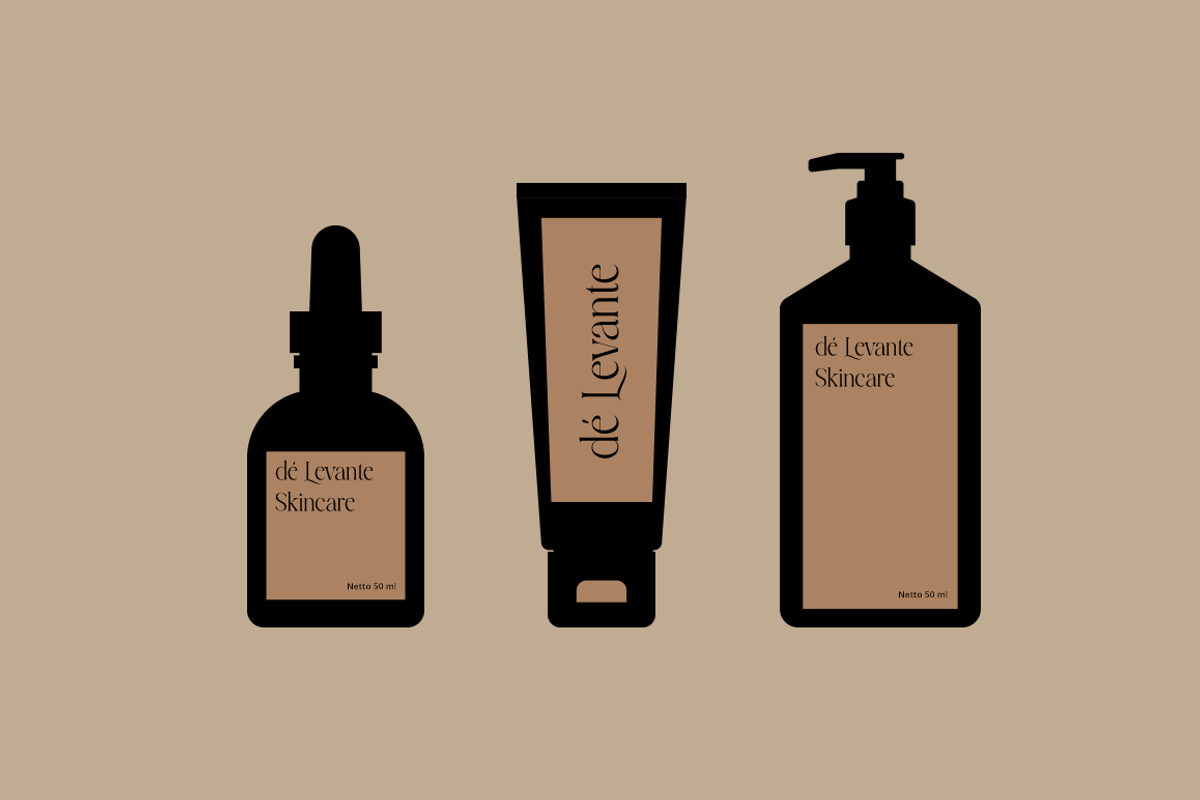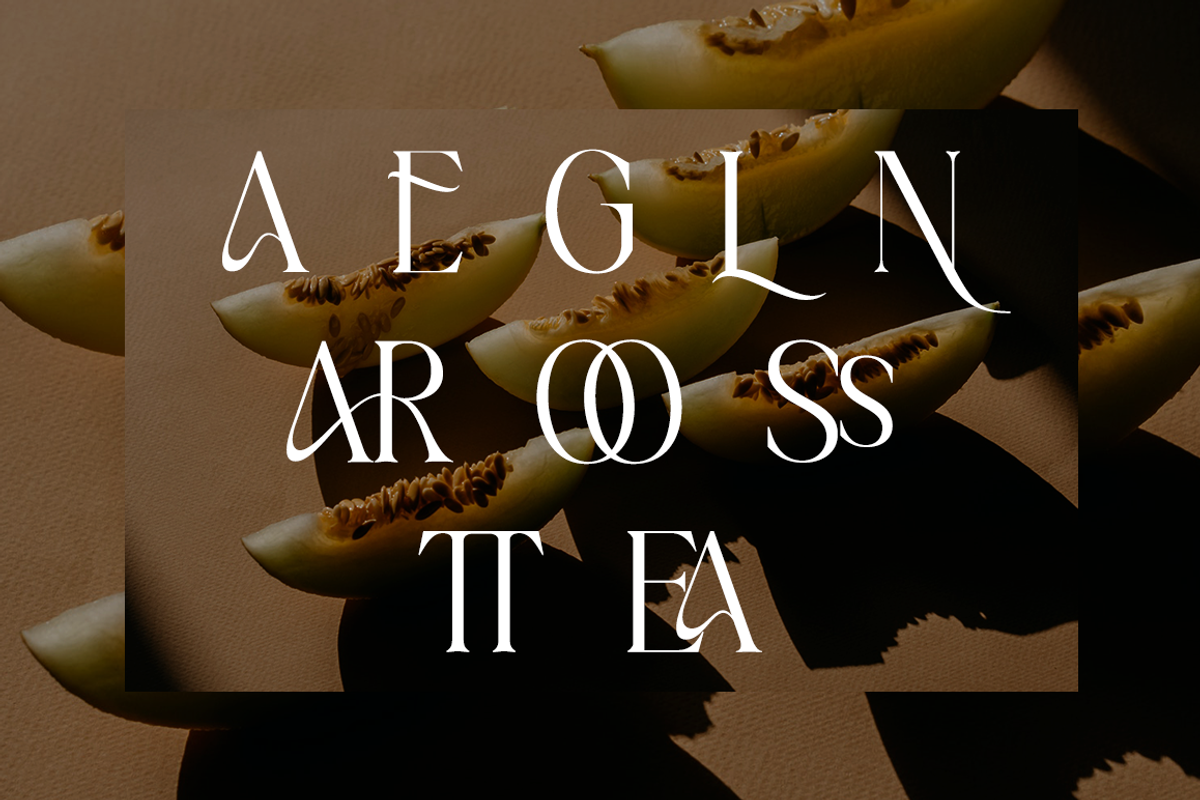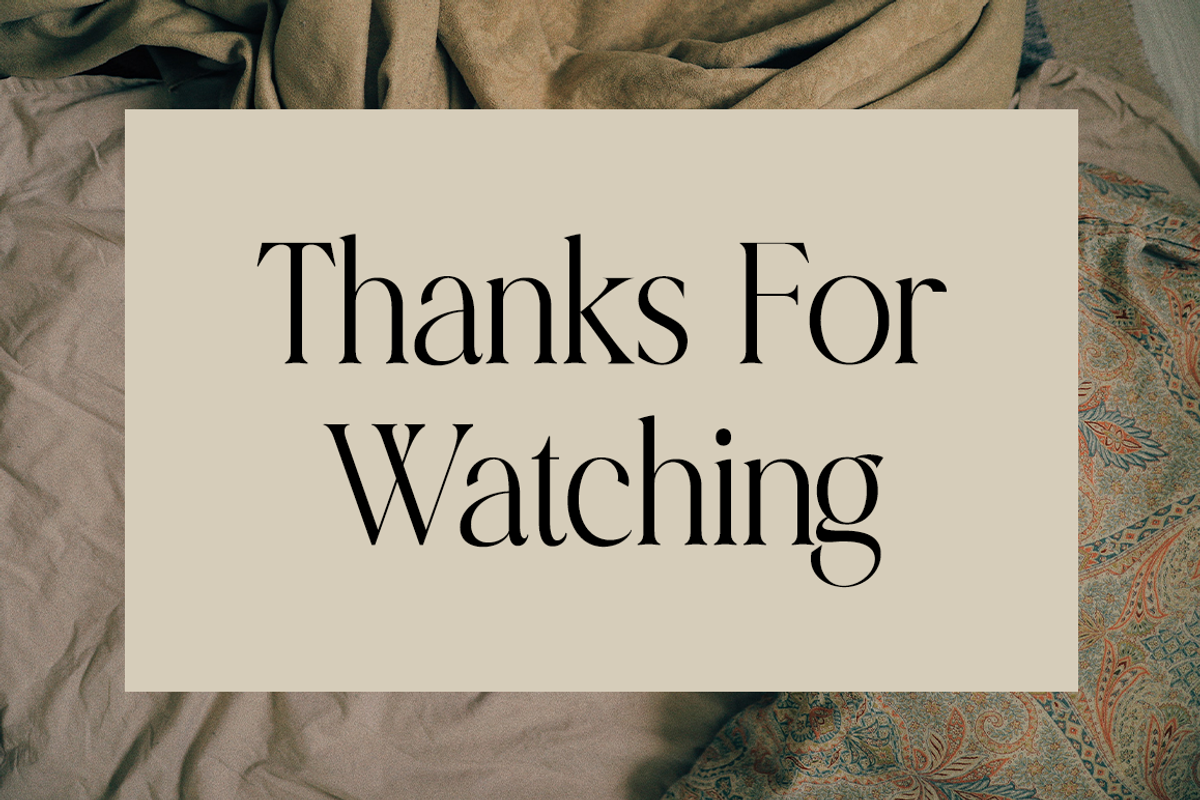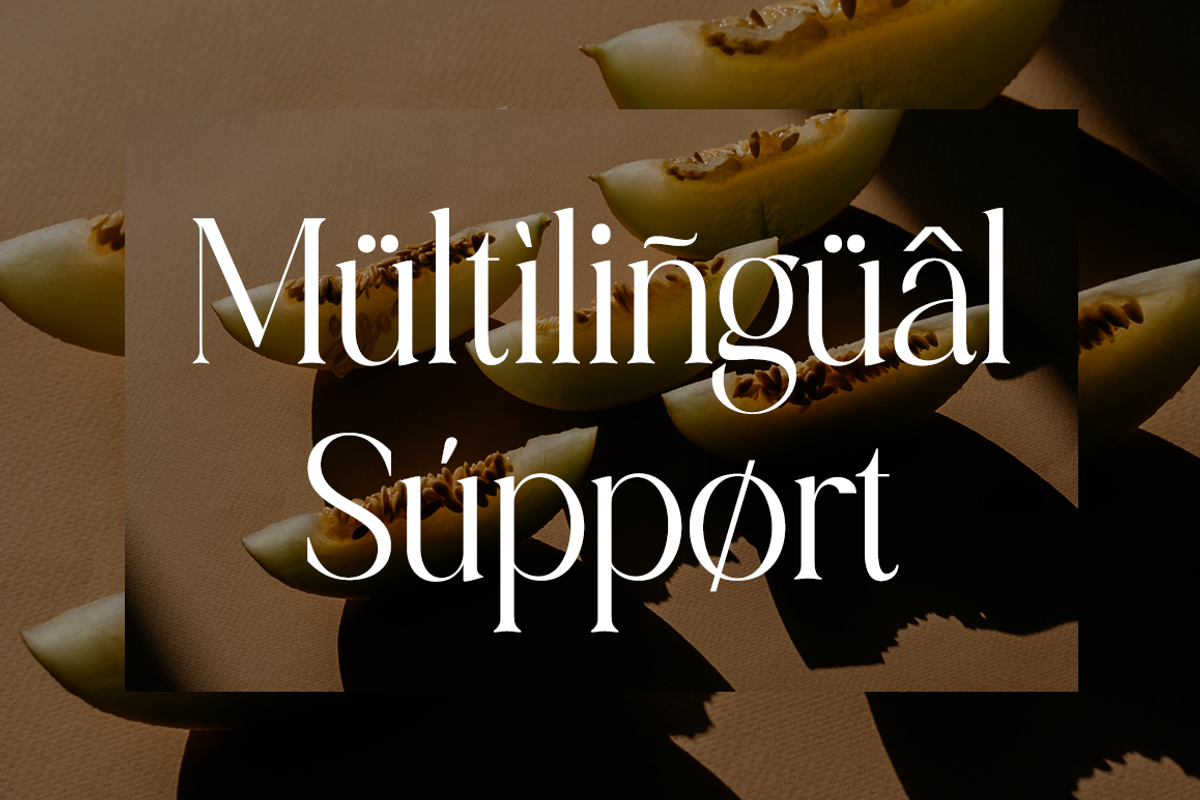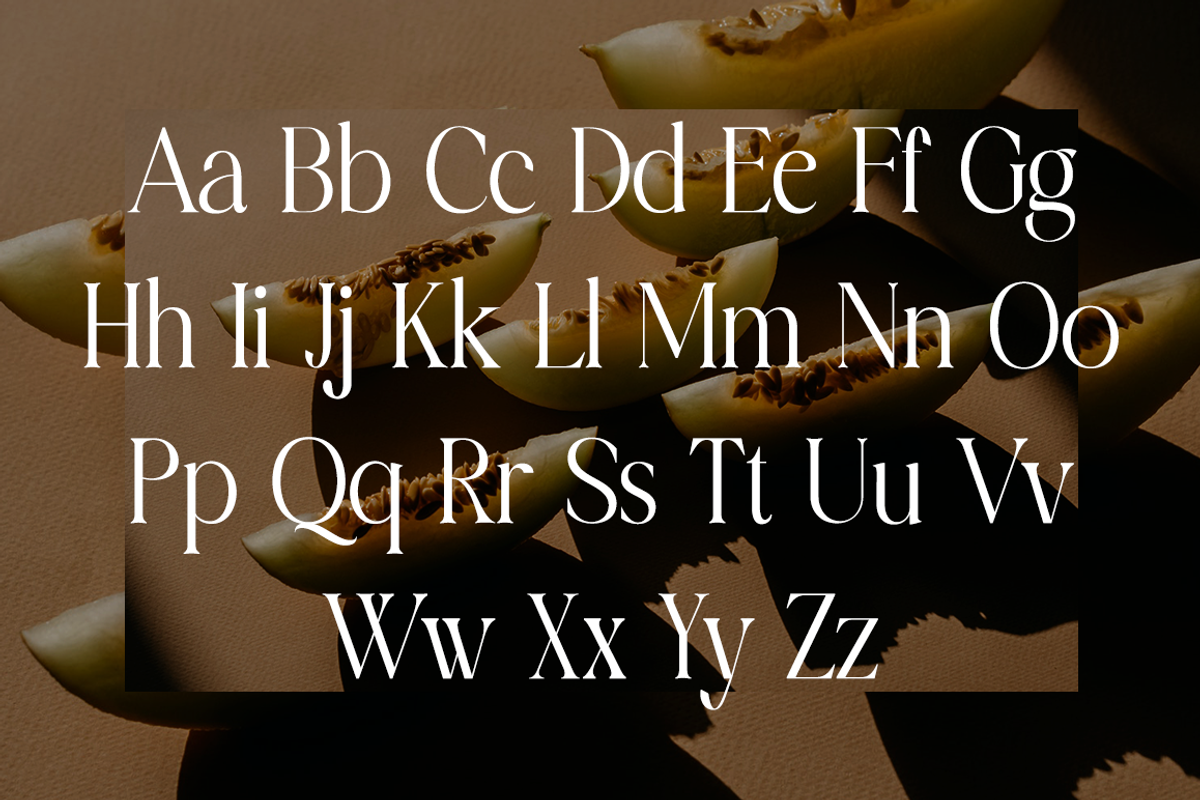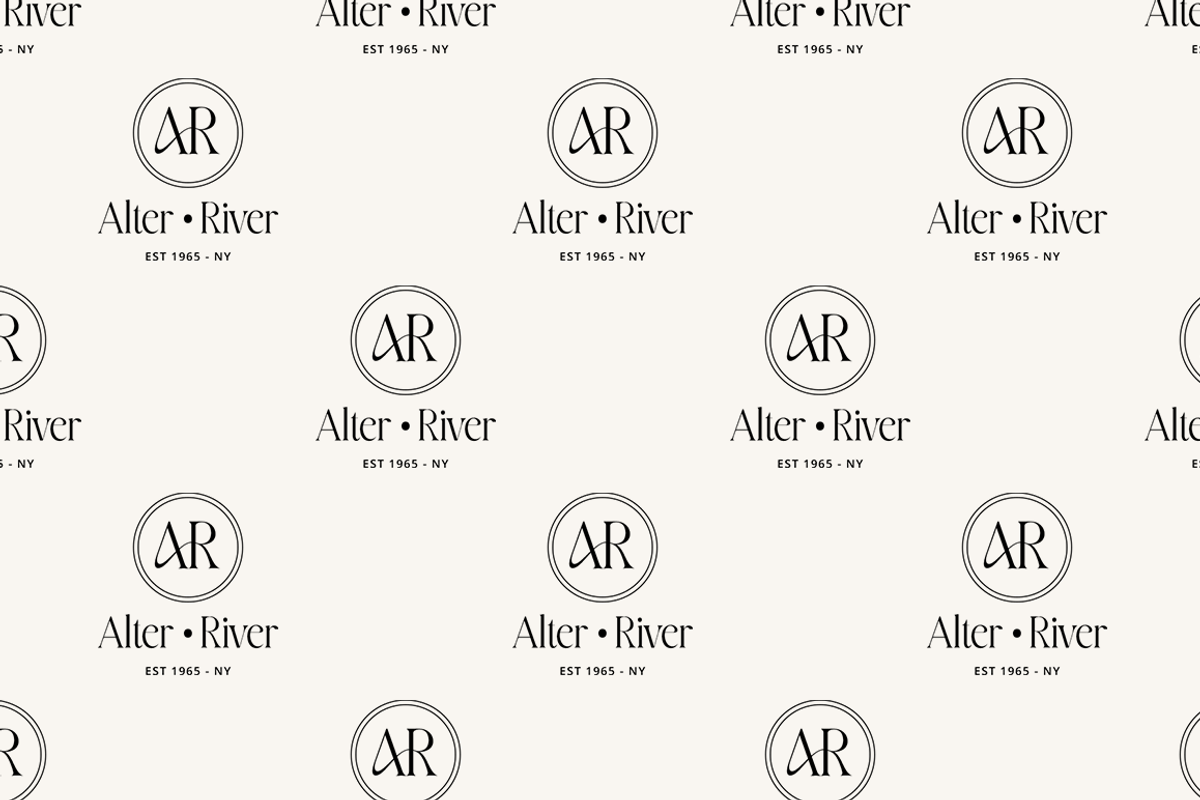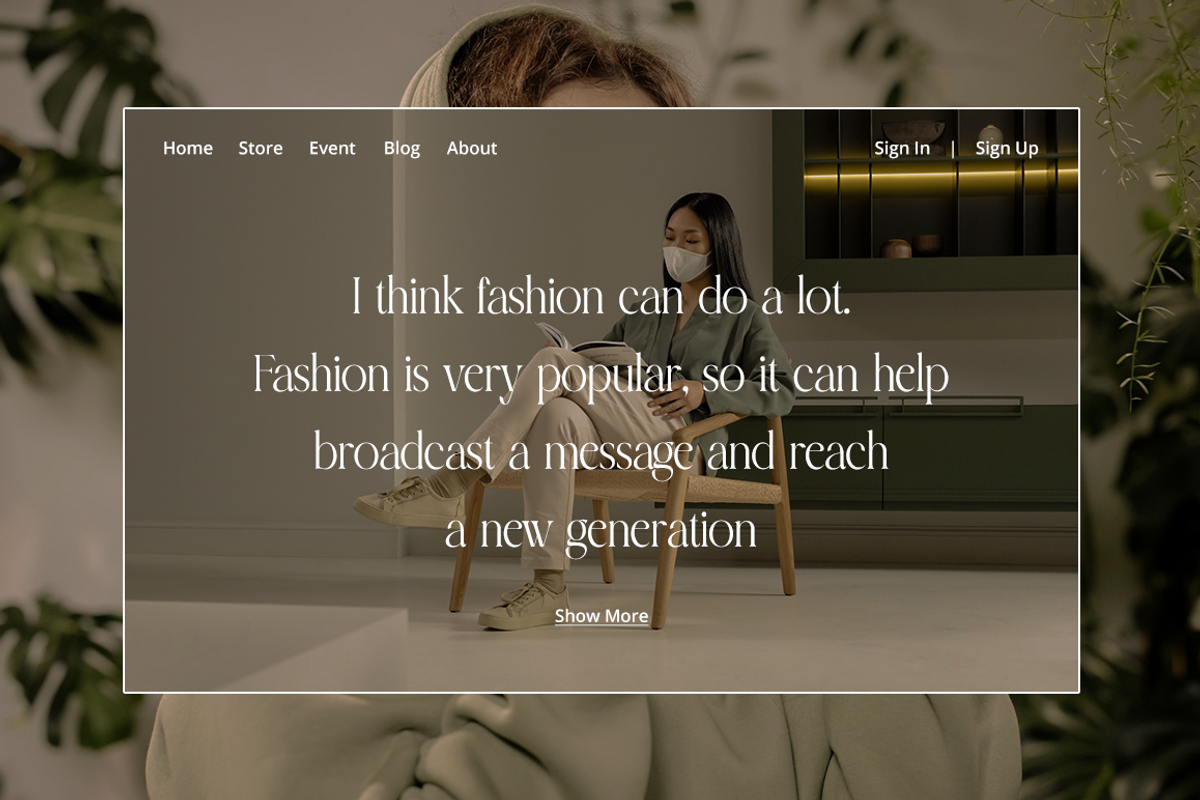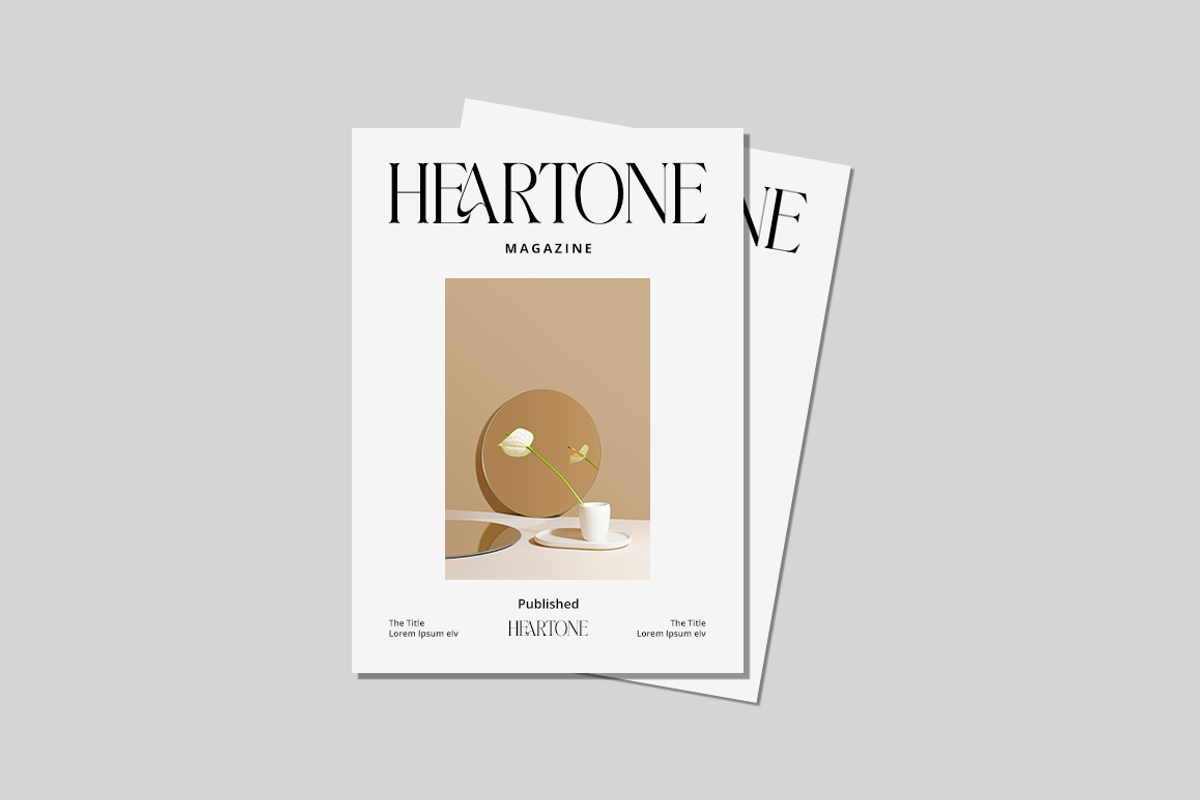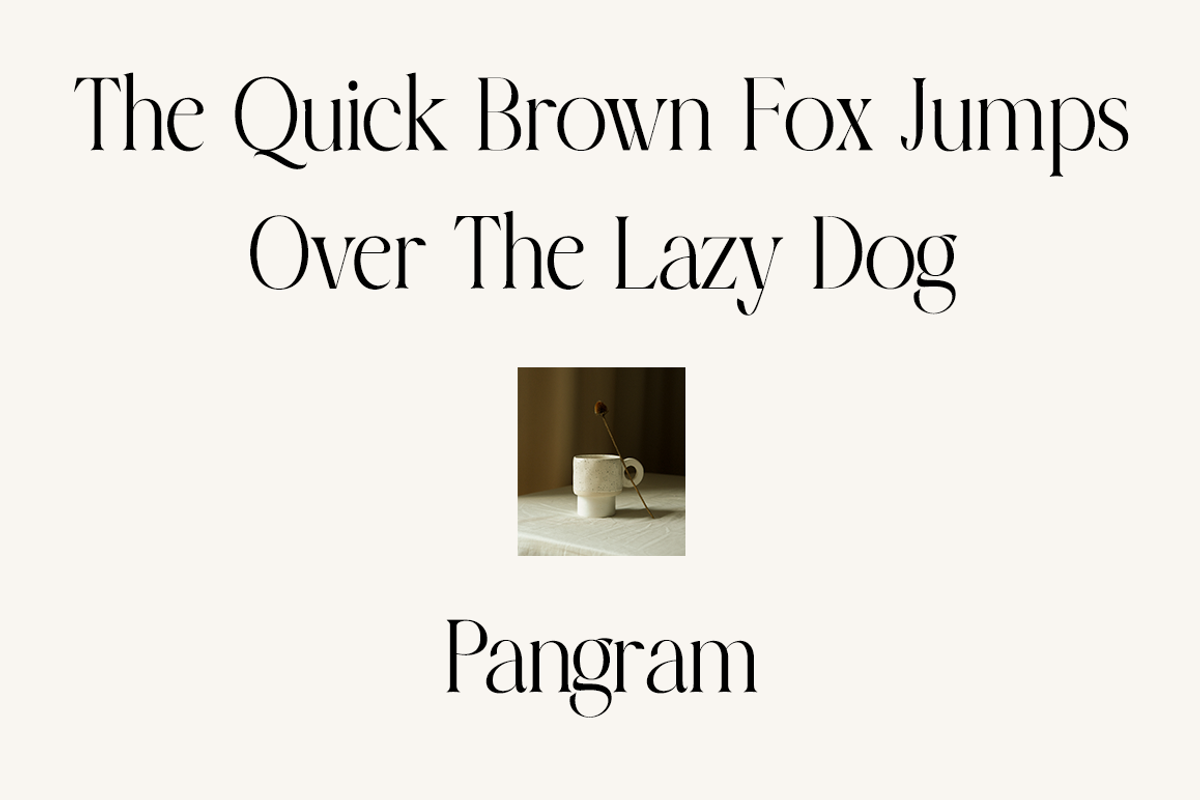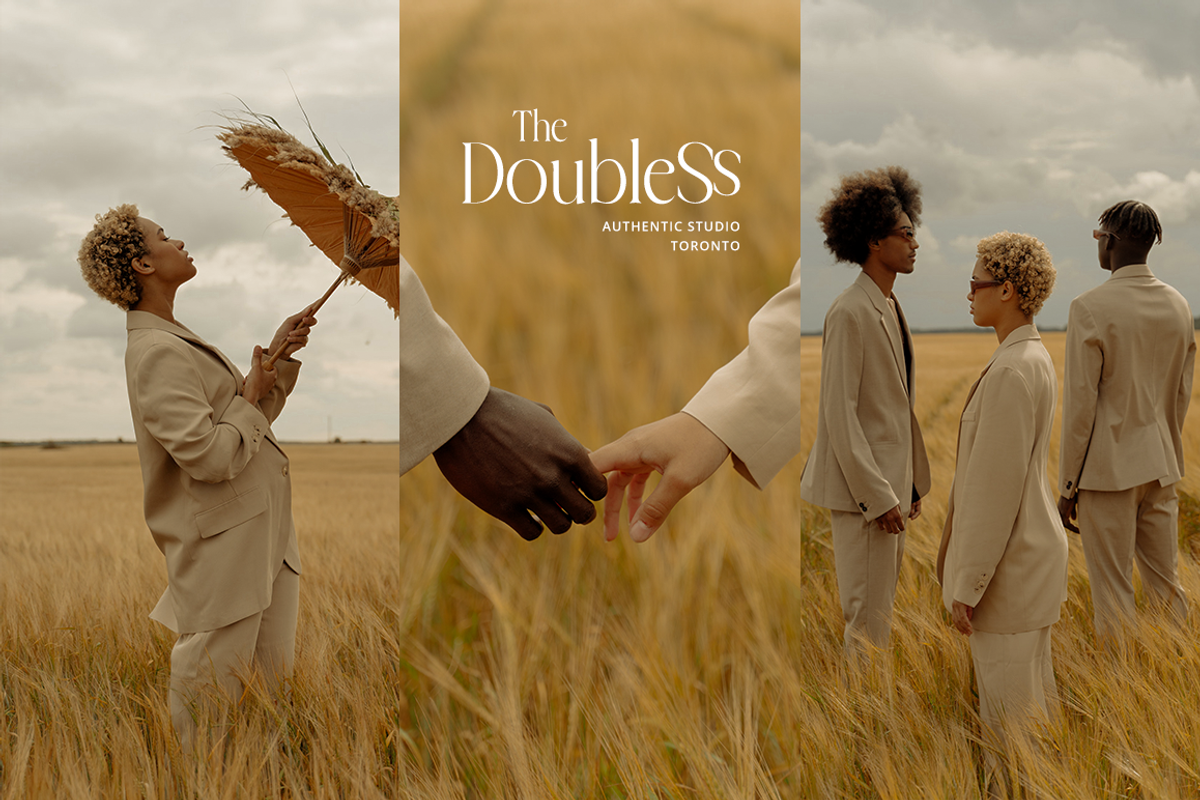
Charlotten - Elegant & Stylish Serif
Charlotten is a distinct, elegant and authentic serif font. Masterfully designed to become a true favorite, this font has the potential to bring each of your creative ideas to the highest level!